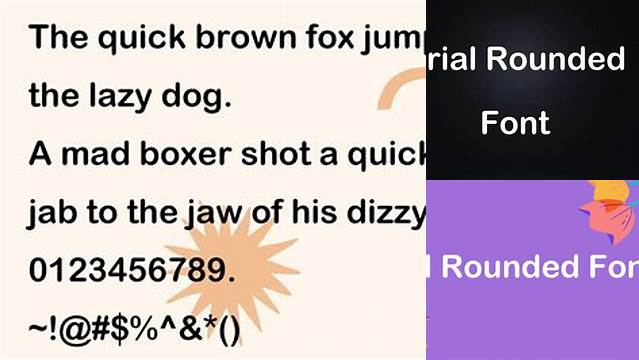
Are you looking to download free Arial Rounded font? This guide will provide you with everything you need to know about this popular font, including its history, uses, and where to find it for free. We'll also delve into the legal aspects of font usage and explore some excellent alternatives if you're looking for something a little different. So, whether you're a seasoned designer or just starting out, let's dive in and discover the world of Arial Rounded! The Arial Rounded font is a widely recognized and appreciated typeface known for its clean lines and rounded terminals, which give it a friendly and approachable appearance. Its versatility makes it a favorite for various design projects, from logos and branding materials to websites and print publications. In this comprehensive guide, we'll explore the history and characteristics of Arial Rounded, discuss its common uses, and provide you with valuable information on how to legally download it for free. We will also address common concerns about font licensing and suggest some excellent alternatives if Arial Rounded doesn't quite fit your project's needs. By the end of this article, you'll have a thorough understanding of how to effectively use Arial Rounded in your designs while ensuring you remain within legal boundaries.
What is Arial Rounded and Why is it Popular?
When we talk about fonts, Arial Rounded's popularity stems from its readability and modern aesthetic. It's a sans-serif typeface, meaning it doesn't have the small decorative strokes (serifs) that you find in fonts like Times New Roman. This gives it a cleaner, more contemporary look, perfect for today's design trends. Arial Rounded is particularly favored for its soft, approachable feel, thanks to the rounded edges on each letter. This makes it ideal for projects where you want to convey friendliness and warmth. Think about logos for children's products, websites for community organizations, or even signage in a casual setting – Arial Rounded often fits the bill perfectly. But why is it so popular among designers and businesses alike? Well, its versatility plays a huge role. It works equally well in headlines and body text, making it a go-to choice for many. Plus, its clear and legible design ensures that your message is easily understood, regardless of the medium. In the digital realm, where readability is paramount, Arial Rounded shines. Its clean lines render beautifully on screens of all sizes, from smartphones to large desktop monitors. This is crucial for maintaining a consistent brand identity across all platforms. Furthermore, Arial Rounded is often pre-installed on many operating systems, making it readily available to a wide audience. This accessibility further contributes to its widespread use and recognition. From a design perspective, Arial Rounded strikes a balance between functionality and aesthetics. It's not overly stylized, which means it doesn't distract from the message, but it's also not bland or generic. Its subtle curves add a touch of personality without compromising on legibility. This makes it a reliable choice for projects where clarity and approachability are key.
History and Characteristics of Arial Rounded
Delving into the history and characteristics of Arial Rounded, you'll find that it's part of the larger Arial family, which was designed in 1982 by a team at Monotype Typography, led by Robin Nicholas and Patricia Saunders. Arial itself was created as a metrically compatible alternative to Helvetica, one of the most popular sans-serif fonts in the world. This means that Arial was designed to have similar dimensions to Helvetica, allowing for easy substitution in documents without significant layout changes. Arial Rounded, as a variation of the original Arial, retains many of these core characteristics but adds a softer touch with its rounded terminals. The rounded edges give the font a more approachable and friendly appearance, making it suitable for designs that aim to convey warmth and informality. One of the key characteristics of Arial Rounded is its excellent legibility. The clear and simple letterforms make it easy to read, even at small sizes. This is crucial for body text, where readability is paramount. The font also performs well in headlines and titles, where its clean lines and rounded edges create a modern and inviting look. The design of Arial Rounded is characterized by a uniform stroke weight and a relatively tall x-height (the height of lowercase letters), which further enhances its readability. The rounded terminals soften the overall appearance, making it less formal than other sans-serif fonts like Helvetica or Arial. This subtle difference can have a significant impact on the overall tone of a design, making Arial Rounded a popular choice for projects that require a friendly and approachable feel. From a technical perspective, Arial Rounded is available in various weights, including regular, bold, and sometimes light, providing flexibility for different design needs. It also supports a wide range of characters, including Latin alphabets, numerals, and punctuation marks, making it suitable for a variety of languages and applications. Overall, the history and characteristics of Arial Rounded highlight its versatility and practicality. It's a font that combines readability with a touch of personality, making it a valuable asset for designers across various fields.
Common Uses of Arial Rounded
Discussing the common uses of Arial Rounded, you'll notice it's a versatile font that appears in a wide range of applications. Its clean and friendly aesthetic makes it a popular choice for both print and digital media. Arial Rounded excels in branding and logo design, where its approachable nature can help create a positive impression. Many companies use it for their logos and marketing materials to convey a sense of warmth and reliability. Think of brands that want to appear friendly and accessible – Arial Rounded is often a go-to option. In the realm of web design, Arial Rounded is frequently used for website headers, body text, and navigation menus. Its excellent readability ensures that visitors can easily consume the content, while its modern look contributes to a contemporary design. The font's clarity makes it particularly effective for websites with a lot of text, as it minimizes eye strain and enhances the overall user experience. Beyond branding and web design, Arial Rounded is also commonly used in print publications, such as brochures, flyers, and posters. Its clean lines and rounded edges make it visually appealing and easy to read, even at smaller sizes. This makes it a practical choice for materials where information needs to be conveyed quickly and effectively. In the educational sector, Arial Rounded is often used in textbooks, worksheets, and other learning materials. Its simplicity and legibility make it ideal for young learners and individuals with reading difficulties. The font's friendly appearance can also help create a more engaging and welcoming learning environment. Furthermore, Arial Rounded is frequently used in signage and wayfinding systems. Its clear letterforms ensure that signs are easily readable from a distance, making it a practical choice for airports, hospitals, and other public spaces. The font's approachable nature can also help create a more positive and reassuring atmosphere in these environments. Overall, the common uses of Arial Rounded highlight its adaptability and versatility. It's a font that can be used in a wide range of contexts, from formal business communications to casual marketing materials. Its clean lines, rounded edges, and excellent readability make it a reliable choice for any project where clarity and approachability are key.
Alternatives to Arial Rounded
If Arial Rounded isn't quite the right fit for your project, or if you're looking for something a little different, there are plenty of alternatives to Arial Rounded that offer similar characteristics and aesthetic appeal. Exploring these alternatives can help you find the perfect font to match your design vision. One popular alternative is Open Sans. It is a humanist sans-serif typeface designed by Steve Matteson, commissioned by Google. Open Sans is known for its clean, open forms and excellent readability, making it a great choice for both body text and headlines. Its neutral yet friendly appearance makes it suitable for a wide range of applications. Another excellent alternative is Lato, a sans-serif typeface designed by Łukasz Dziedzic. Lato is characterized by its semi-rounded details, which give it a warm and approachable feel, similar to Arial Rounded. Lato is highly legible and works well in various sizes, making it a versatile option for both print and digital projects. Roboto is another popular choice, especially for web design. Designed by Christian Robertson, Roboto is a neo-grotesque sans-serif typeface that is the system font for Android. Its clean lines and geometric forms make it modern and highly readable on screens. Roboto comes in a variety of weights, providing flexibility for different design needs. Nunito Sans is a rounded sans-serif typeface designed by Jacques Le Bailly. It offers a softer and more playful aesthetic compared to Arial Rounded, making it a great choice for projects that require a friendly and approachable feel. Nunito Sans is particularly well-suited for children's products, educational materials, and websites with a casual tone. Cabin is a modern sans-serif typeface designed by Pablo Impallari. It combines elements of humanist and geometric designs, resulting in a clean and legible font with a touch of personality. Cabin is a versatile option that works well in both headlines and body text. Finally, Montserrat is a geometric sans-serif typeface designed by Julieta Ulanovsky. Inspired by urban typography in the Montserrat neighborhood of Buenos Aires, Montserrat has a distinct and stylish appearance. It is a popular choice for branding, logos, and headlines. In summary, there are numerous alternatives to Arial Rounded that offer similar characteristics and aesthetic appeal. Exploring these alternatives can help you find the perfect font to match your design vision and create visually compelling projects.